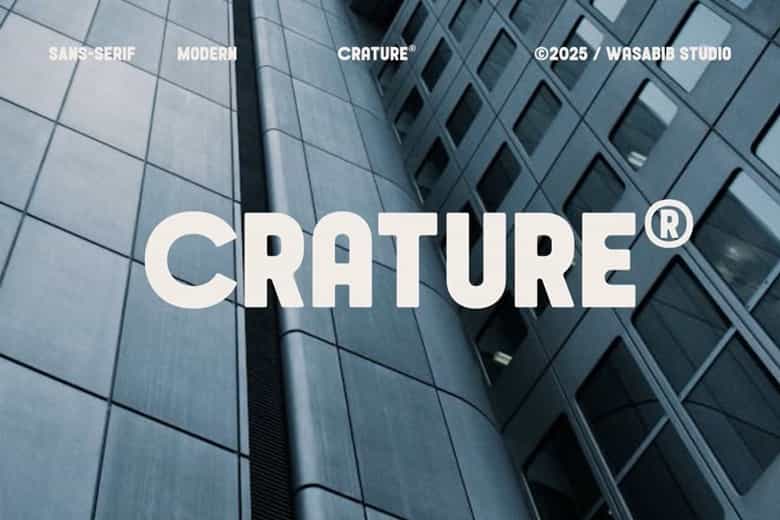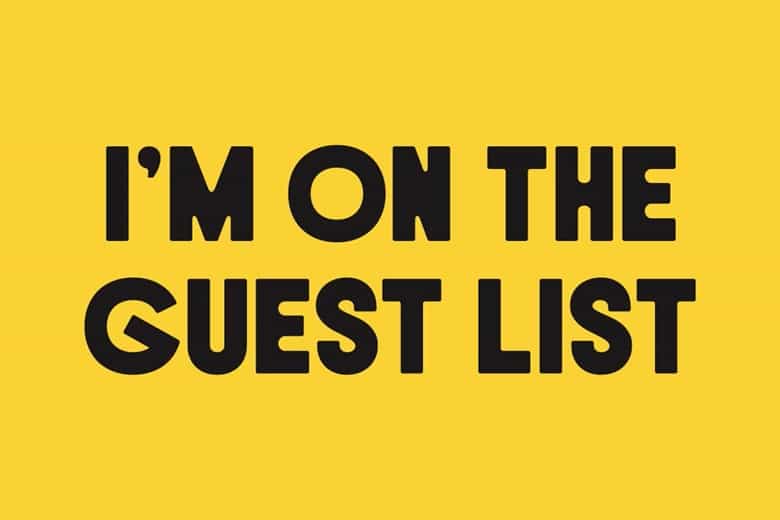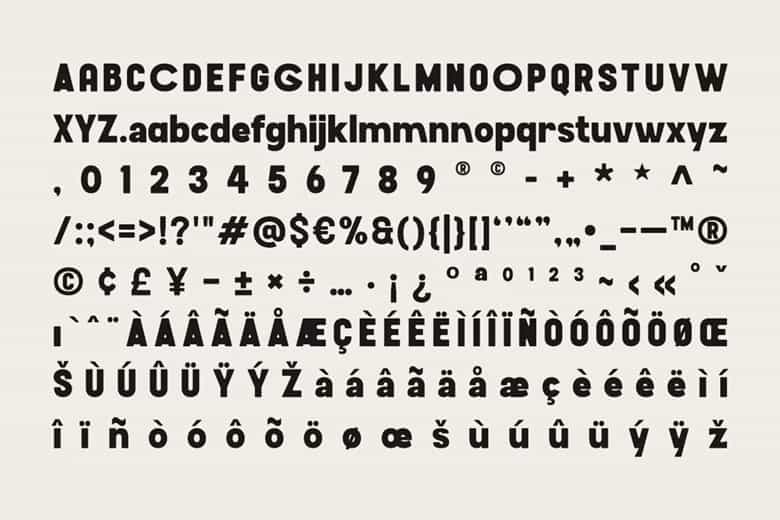
This is a modern sans serif typeface with clean and minimalist design and it has the advantage of stylistic alternates. It sports a modest contemporary look together with a long lasting modern vibe and simple straight lines making it fit in for a lot of design projects. Being versatile, the font can be applied for different purposes as branding, editorial design, web design etc.